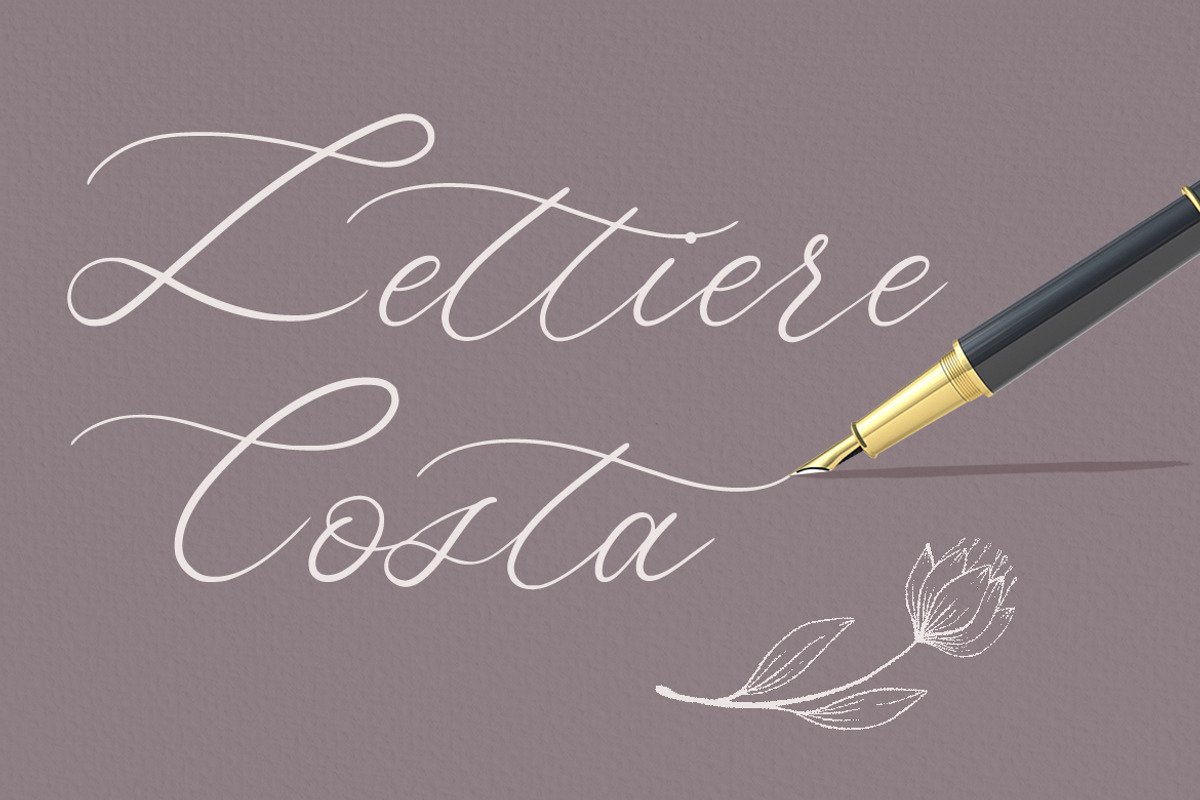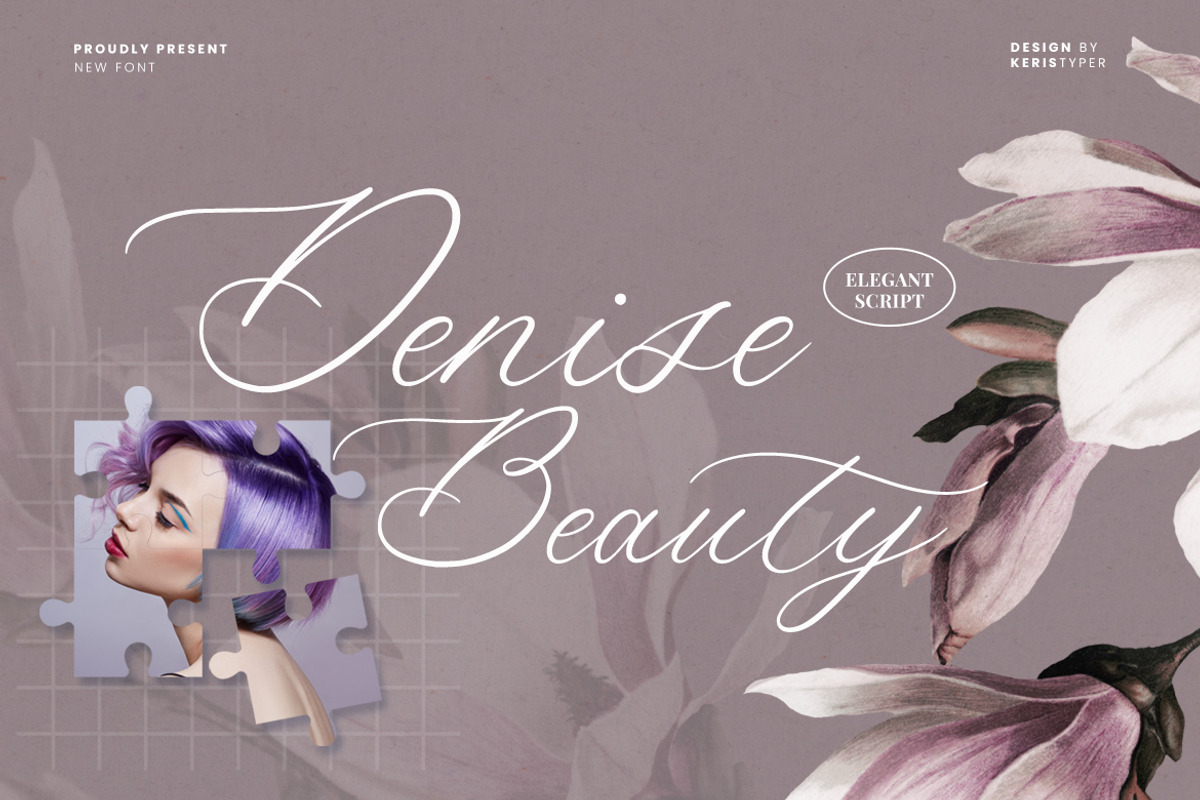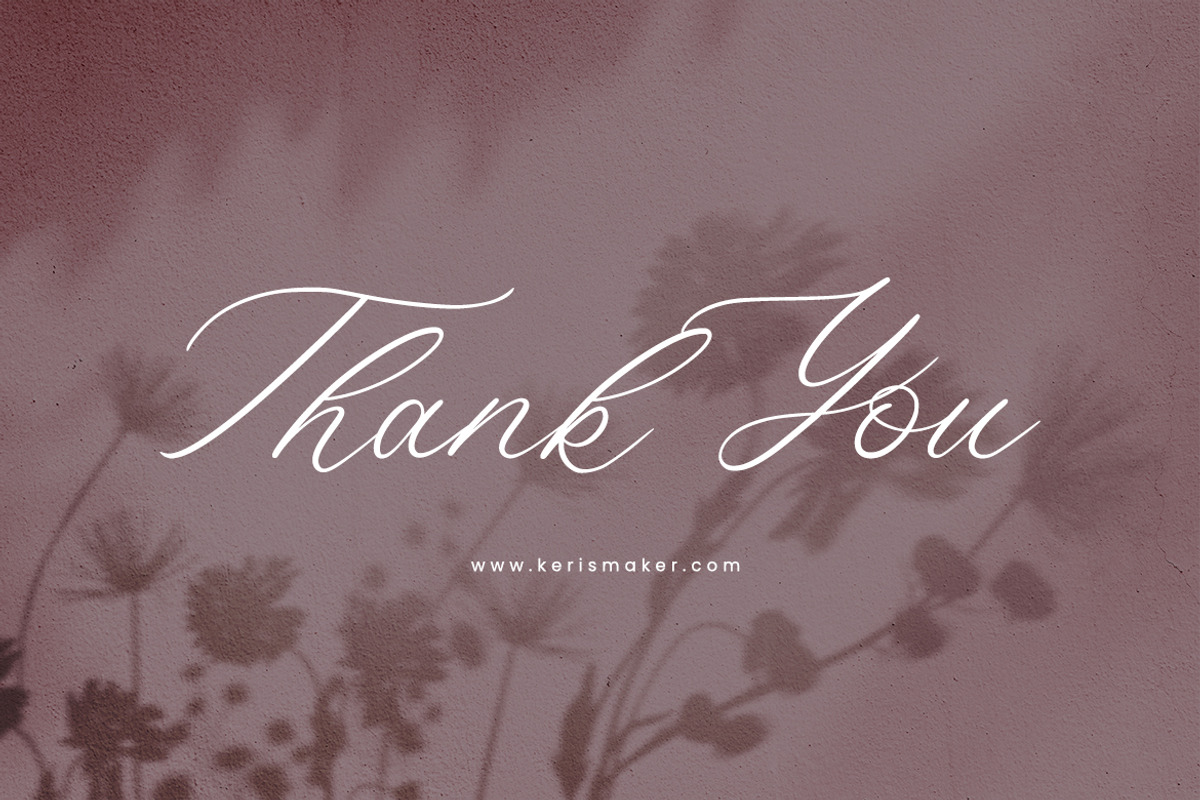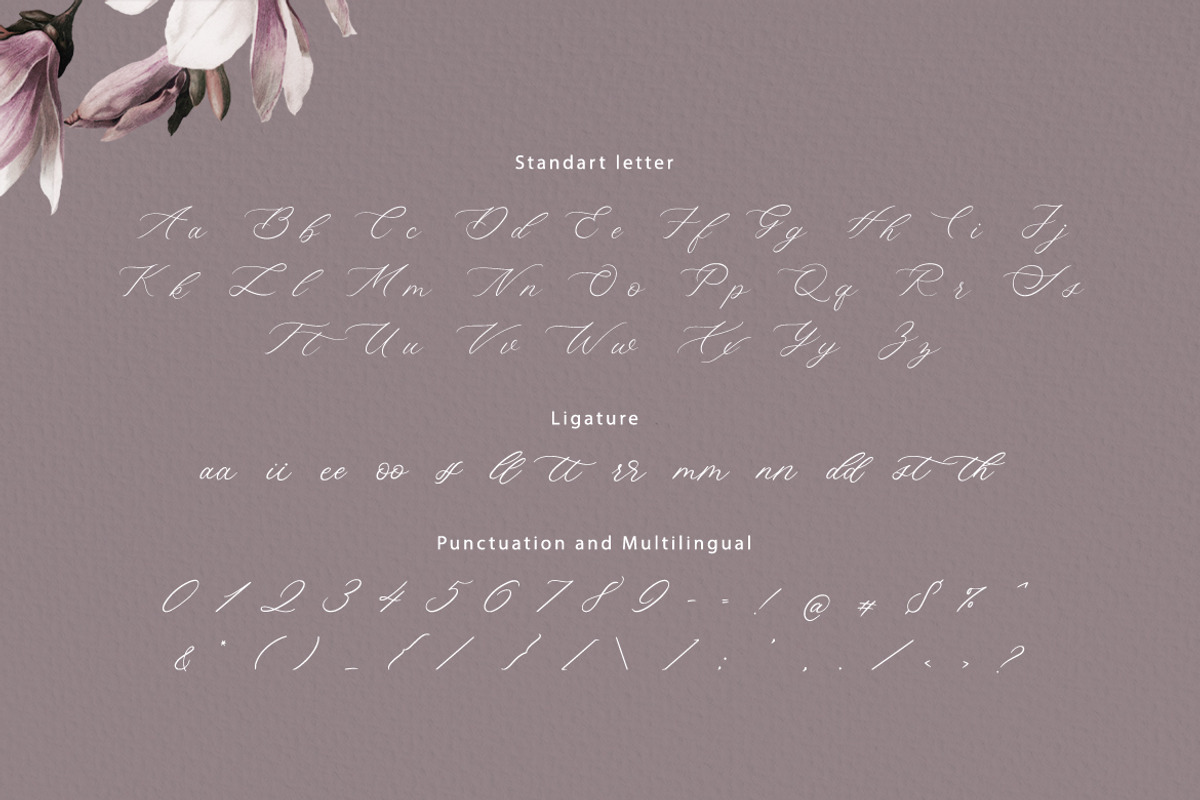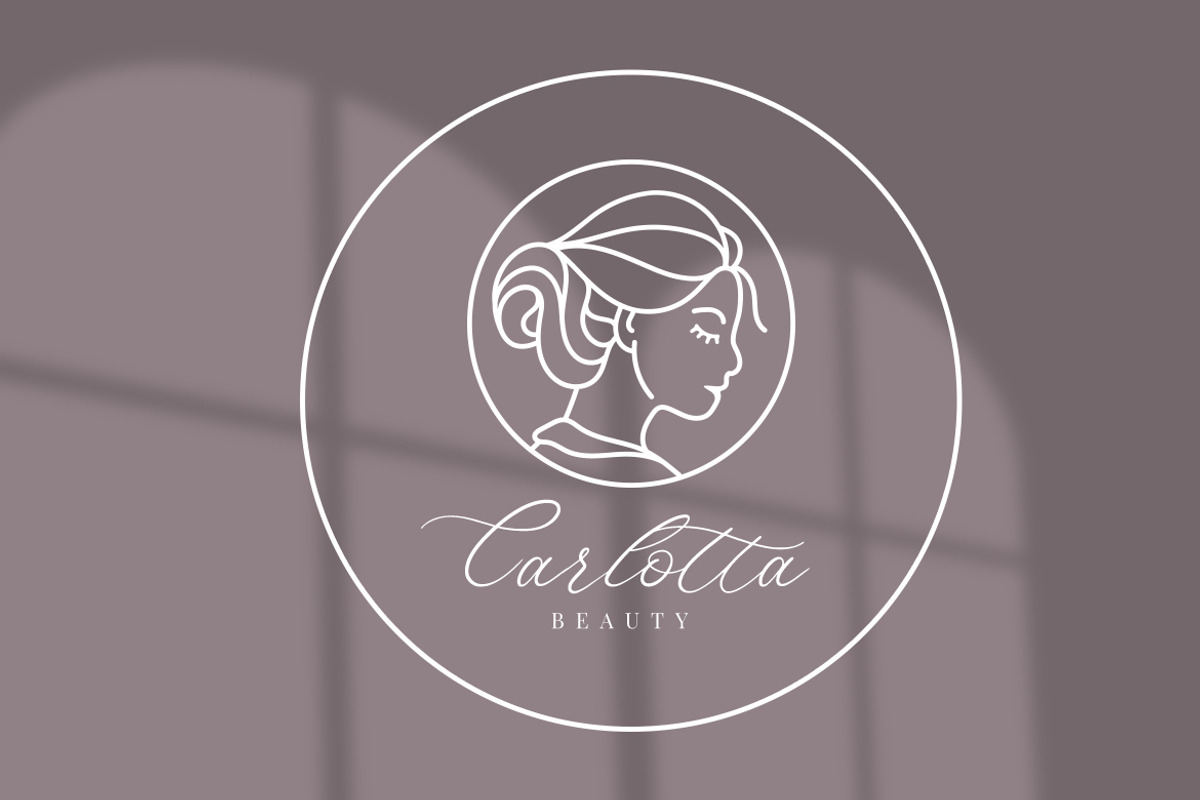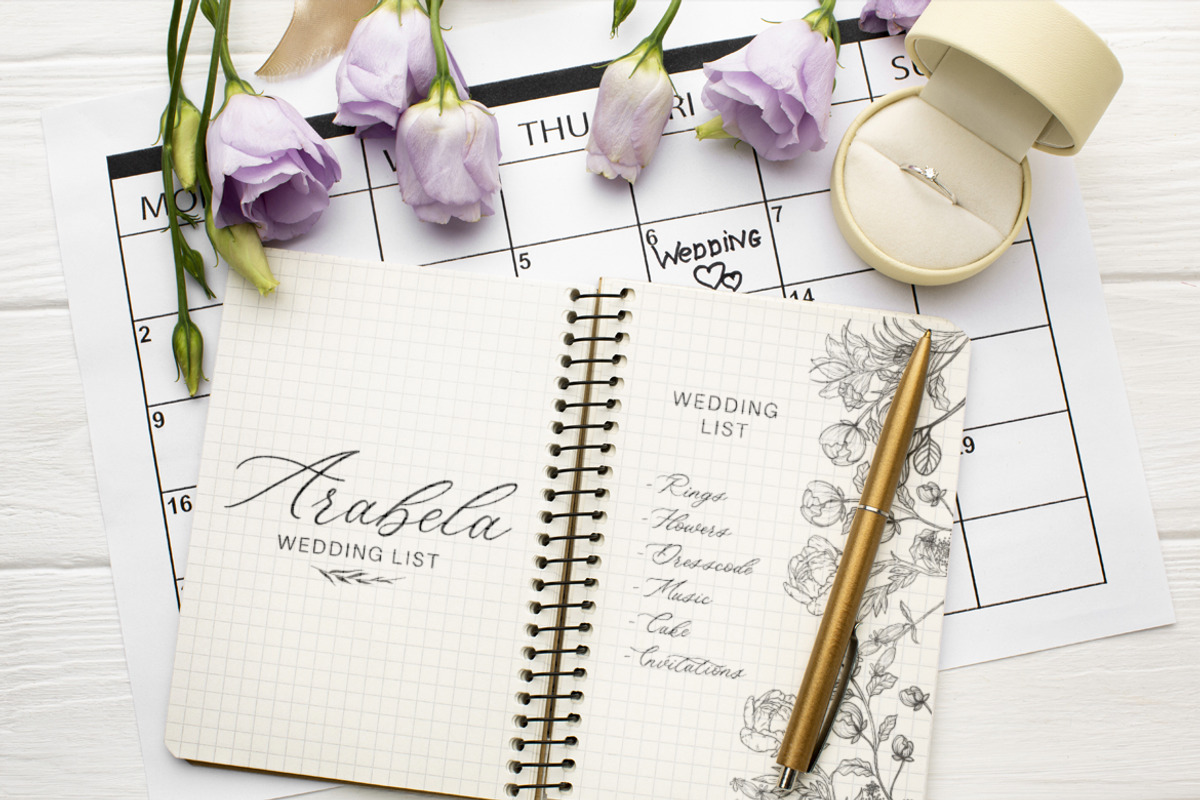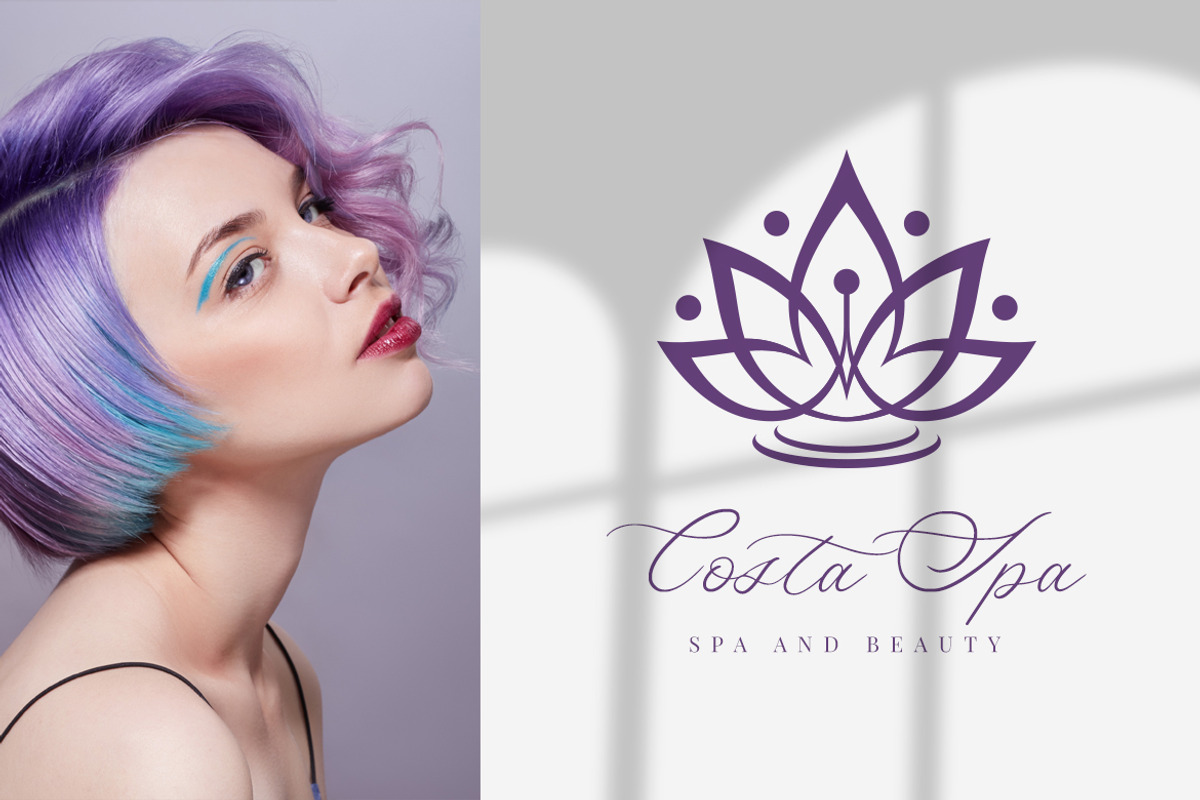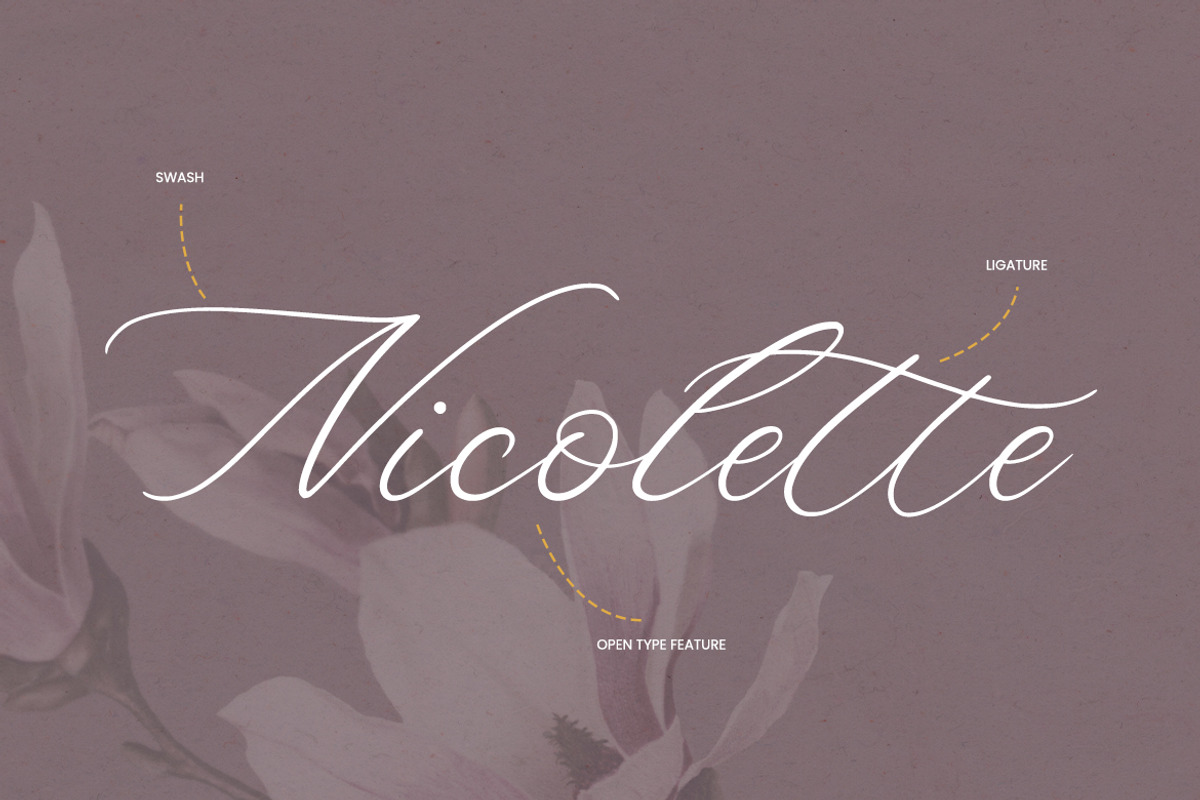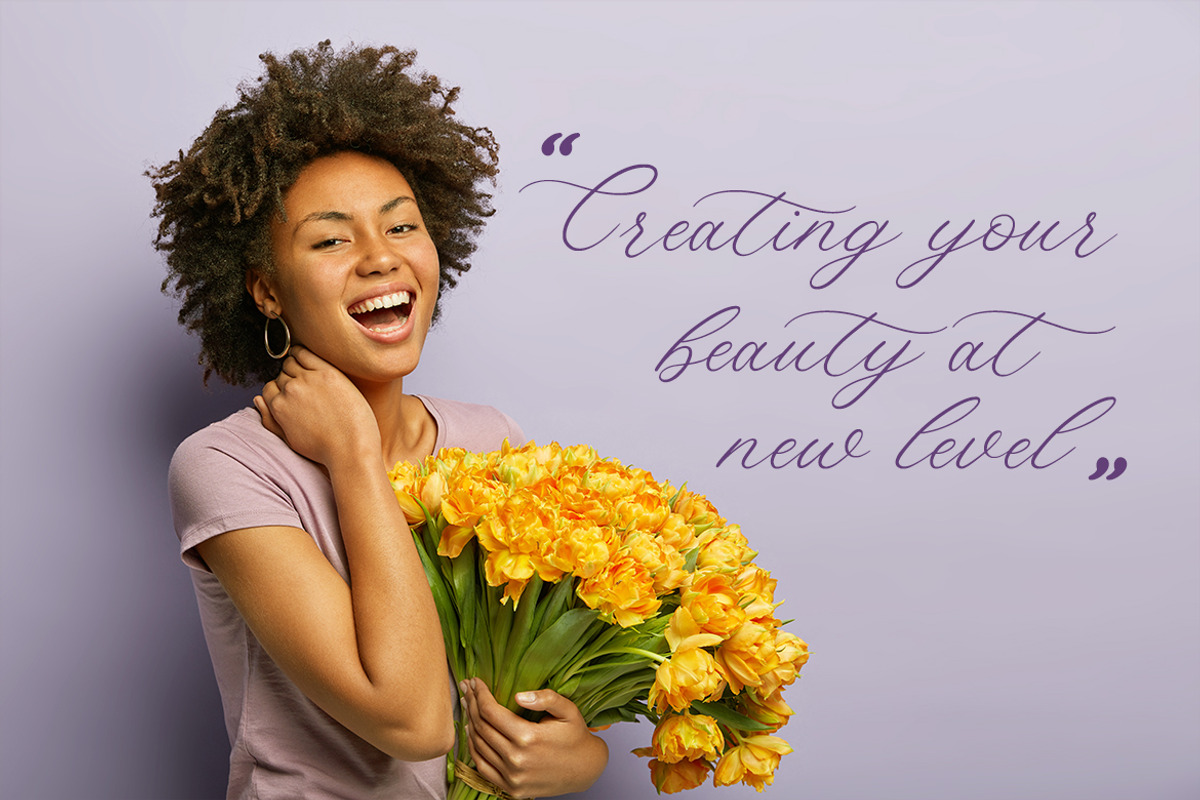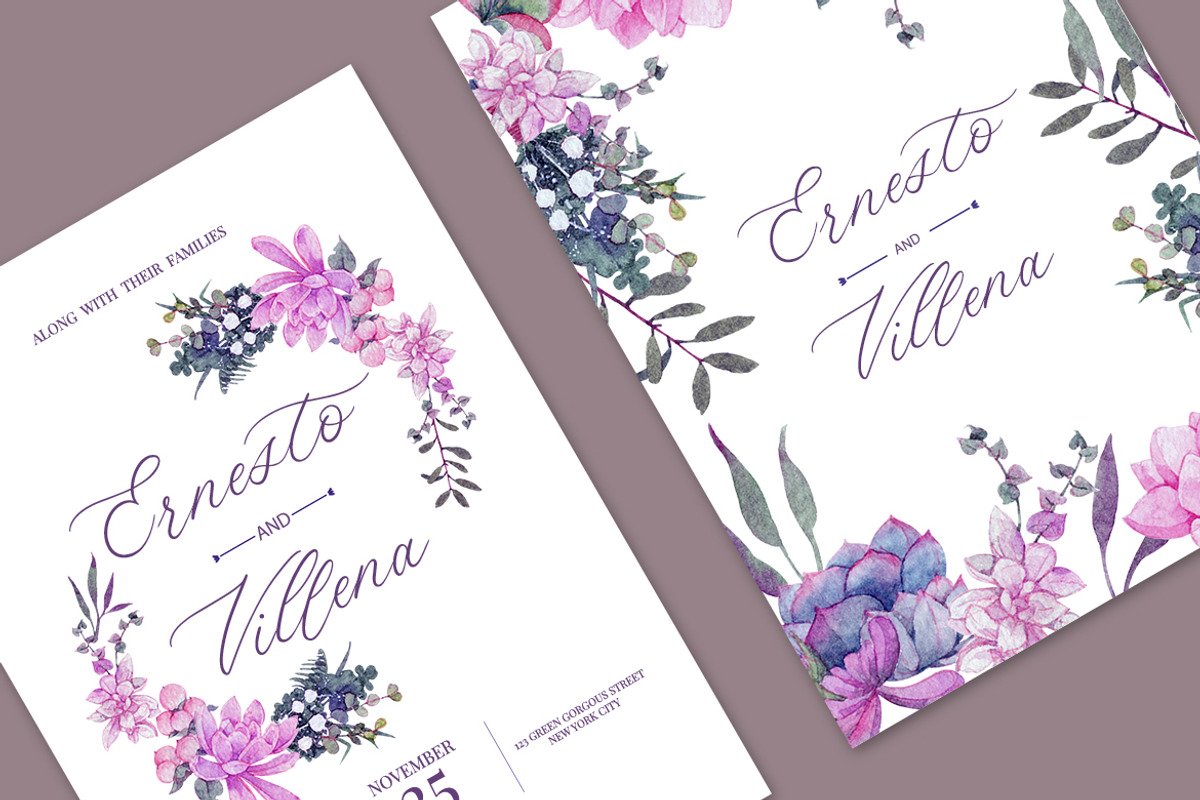
Denise Beauty
Meet our new modern signature font - Denise Beauty. This beautiful script is for those who are needing of elegance and stylish character for their designs and is particularly well suited for wedding invitations, save-the-date cards, and feminine branding.
Denise Beauty Font multilingual support: Afrikaans, Albanian, Catalan, Danish, Dutch, English, Estonian, French, Finnish, German, Icelandic, Indonesian, Italian, Malay, Norwegian, Portuguese, Spanish, Swedish, Zulu, and many more.